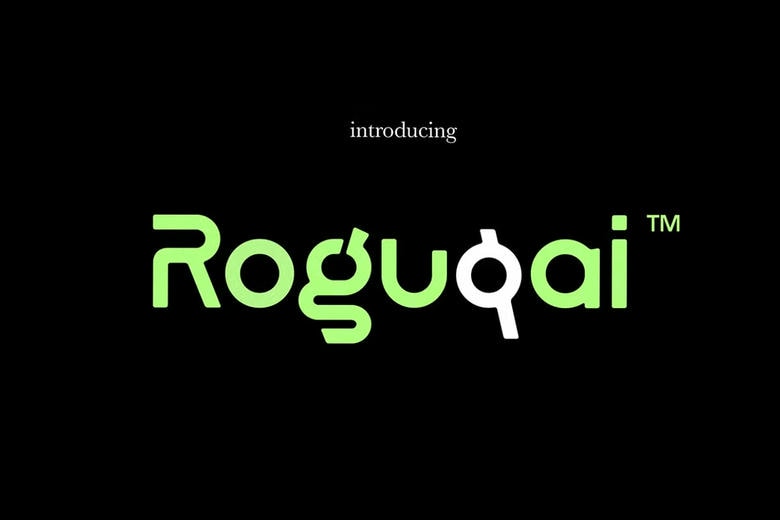
Roguqai Font
Roguqai is a modern sans-serif font with creative sense of variety. It boasts curved edges around most of the corners and gives your designs a friendly professional feel. hese fonts are ideal in that they contain both uppercase and lowercase letters in their alphabet.
If you are creating an amazing logotype or fantastic headers or even branding materials, Roguqai takes a clean and professional look that is sure to draw the attention of people to your product. Its modern look along with its friendly aesthetics makes it a versatile solution for creative endeavors that require both innovation and well-communication.
Roguqai Sans Serif Font